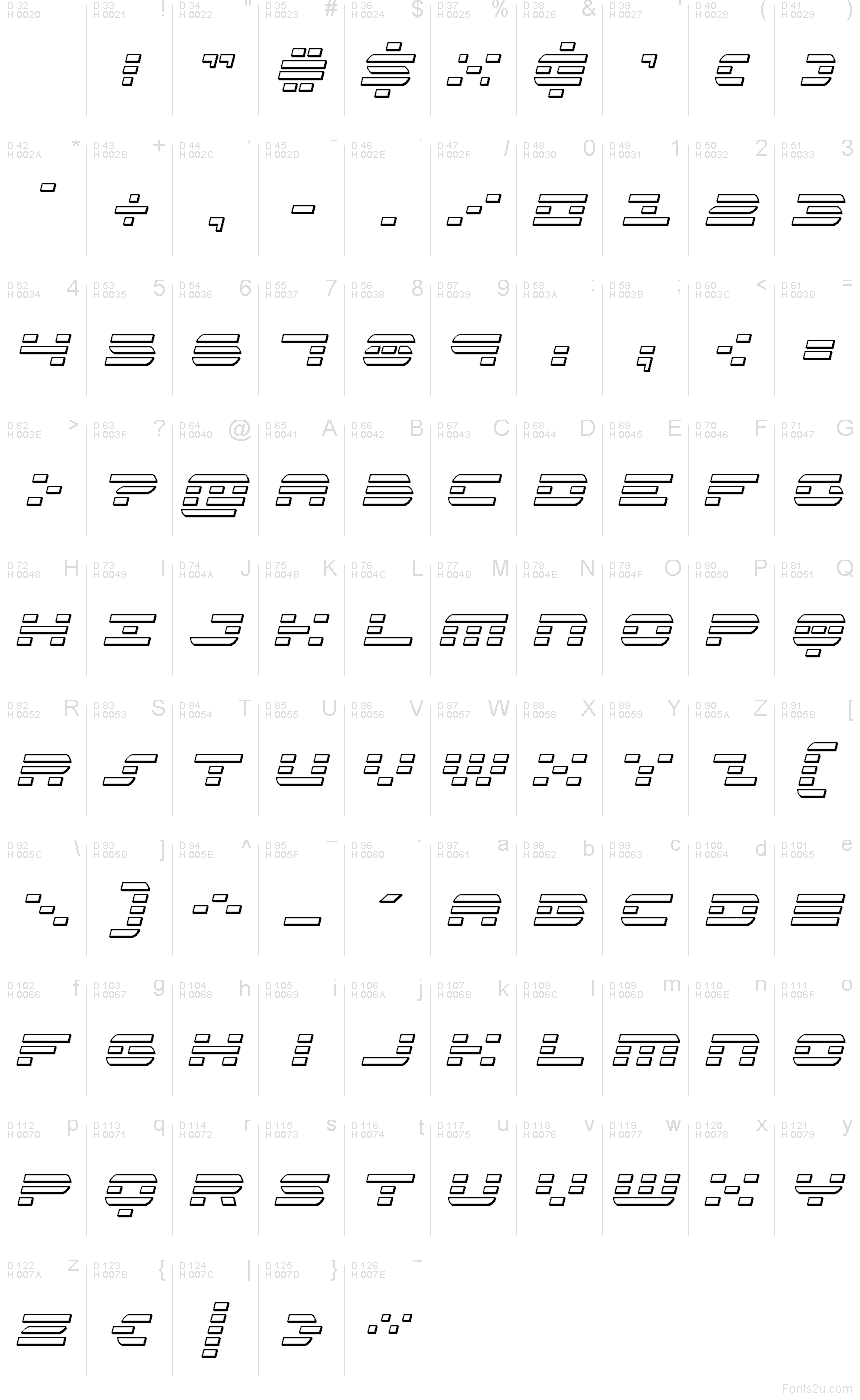
Nova Terra 3D Condensed Italic
Nova Terra 3D Condensed Italic font by Iconian Fonts is a free futuristic 3D display typeface in the Nova Terra family. Its tightly condensed letters, hard angles, and slanted stance feel like they’re racing across a chrome console, while the layered 3D bars add depth and a slick, sci‑fi sheen. The result is a loud, kinetic wordmark that reads clearly even when the forms are stacked and segmented.
Using Nova Terra 3D Condensed Italic, titles snap into place on sci‑fi posters, game splash screens, esports team graphics, tech event banners, YouTube thumbnails, and cyber‑themed book covers. This free font shines at large sizes where its dimensional stripes can really pop; pair it with a clean geometric sans in regular weight for body copy to keep layouts sharp and readable.